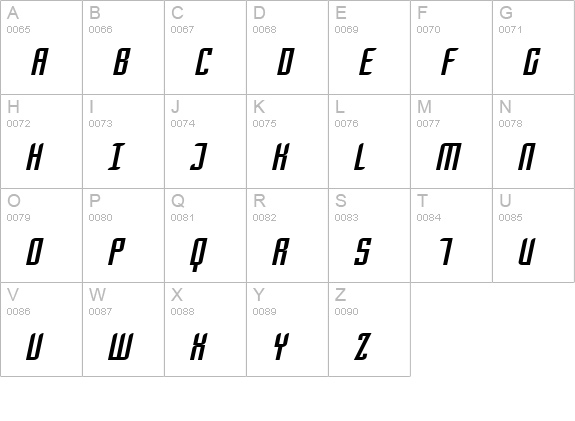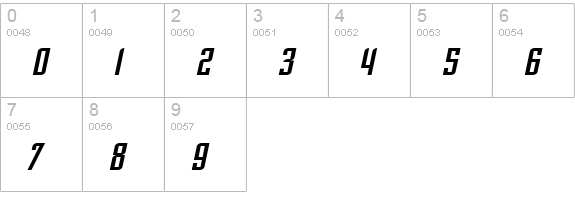
SF Piezolectric Oblique Font Details
SF Piezolectric Oblique is a distinctive, italic variant in the SF typeface family \xE2\x80\x94 well suited to design and typography projects.
SF Piezolectric Oblique font is a modern and futuristic typeface that exudes a sense of electricity and energy. Its unique oblique design adds a dynamic and captivating touch to any project it is used in. The piezolectric effect, from which the font draws its inspiration, is a phenomenon where certain materials generate an electric charge when subjected to mechanical stress. This font beautifully captures the essence of this effect, with its sharp angles and electrifying vibe. Perfect for headlines, logos, posters, and various other design projects, SF Piezolectric Oblique font makes a bold statement and demands attention. Its sleek and edgy appearance is sure to leave a lasting impression on anyone who encounters it. What's even better is that SF Piezolectric Oblique font is freely available to download at FontsMarket.com. This means that designers and creatives can easily access and utilize this striking typeface without any cost. Whether you're a professional designer or a hobbyist, this font provides an opportunity to enhance your projects with a touch of modernity and excitement. So why wait? Go ahead and download SF Piezolectric Oblique font from FontsMarket.com today and infuse your designs with a burst of electrifying energy.